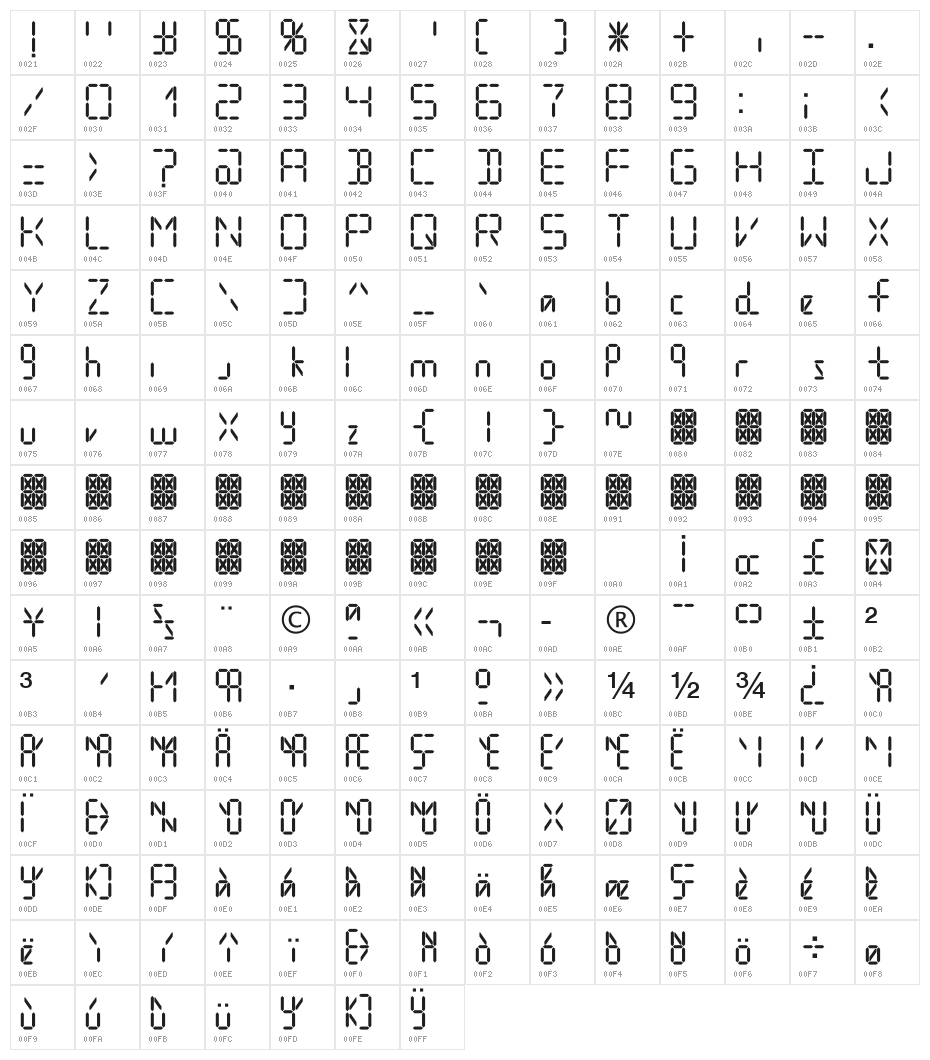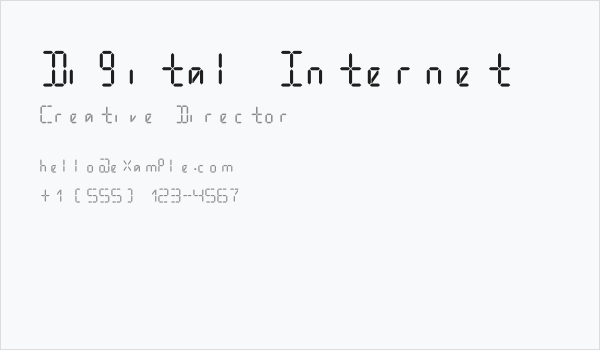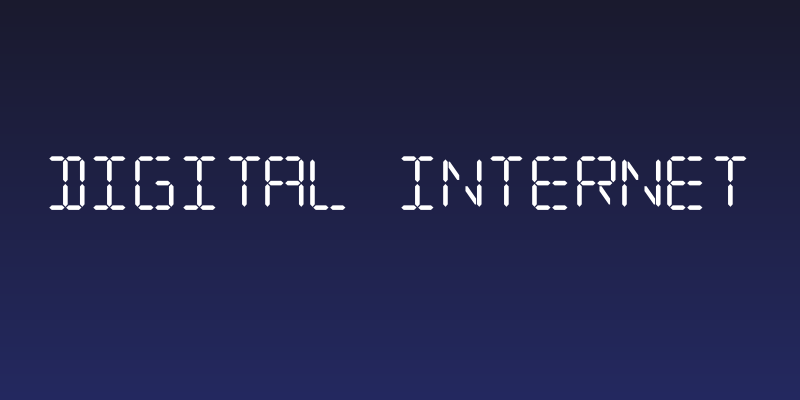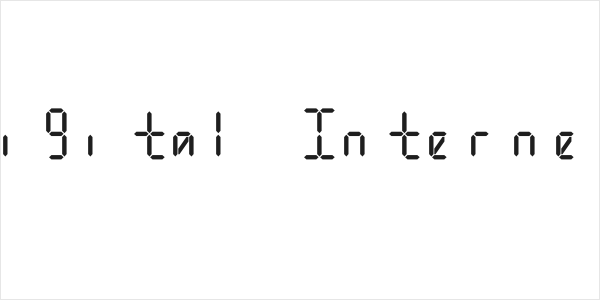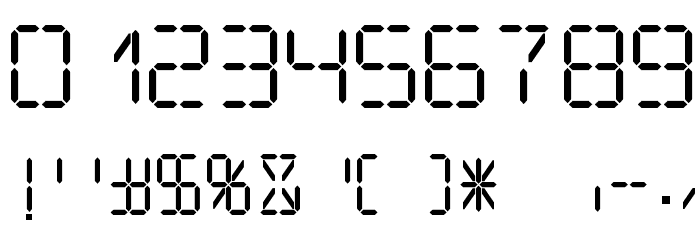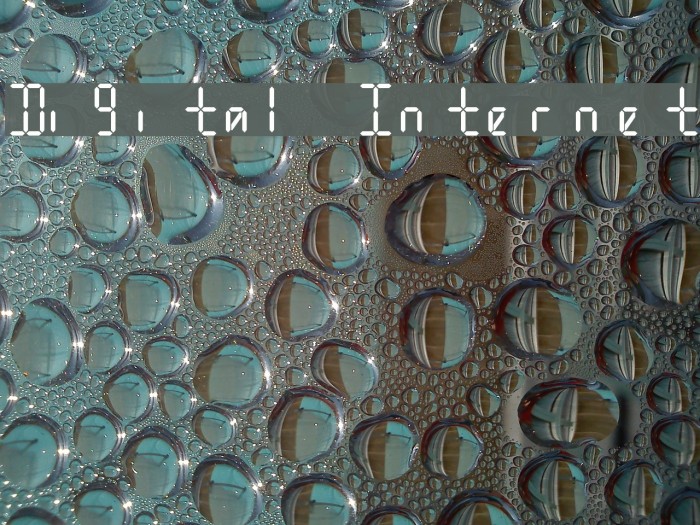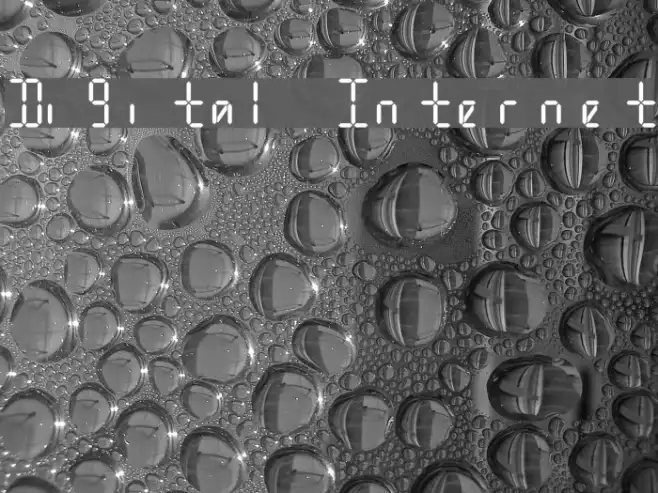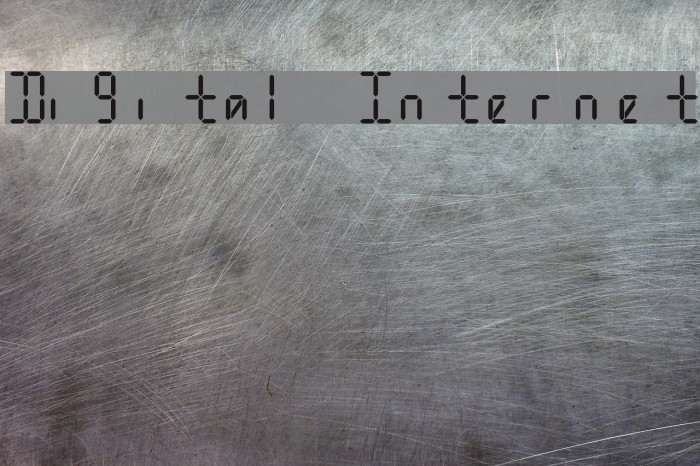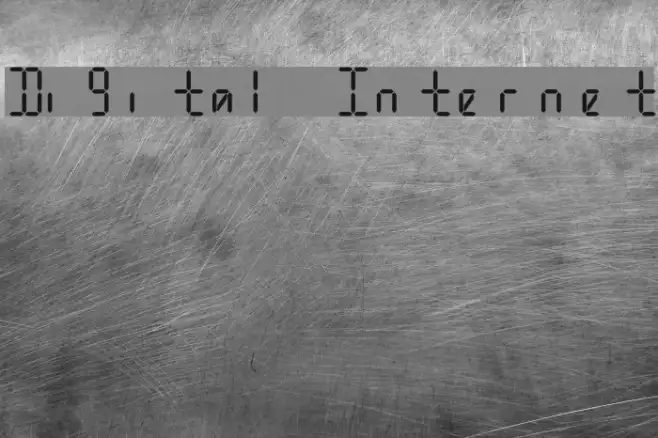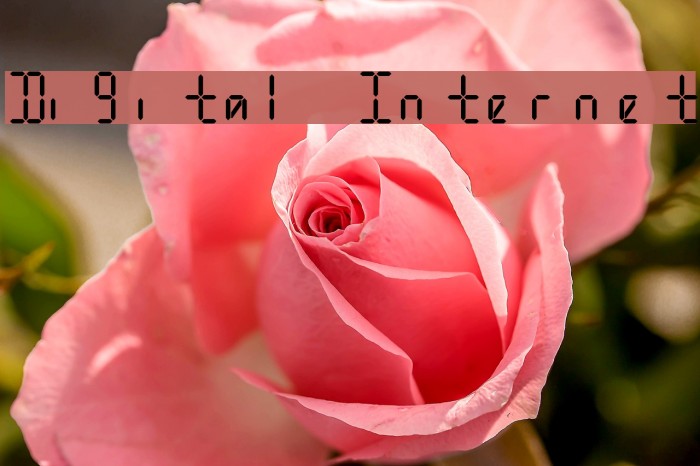
Digital Internet Font
Digital Internet Description
This font features a digital, segmented style reminiscent of classic LED displays. Each character is constructed from a series of uniform, rectangular segments, giving it a distinctly technological and modern appearance. The uppercase and lowercase letters, as well as numbers and special characters, maintain a consistent design that mimics the look of digital clocks or calculators. The font's geometric precision and uniformity make it ideal for conveying a sense of technology and futurism. Its clean lines and structured form ensure readability while maintaining a unique aesthetic that stands out in digital and print media.
| Use Case | Headlines, Logos, Digital displays |
| Proposed Projects | Ideal for digital interfaces, tech branding, futuristic posters, and electronic device displays. |